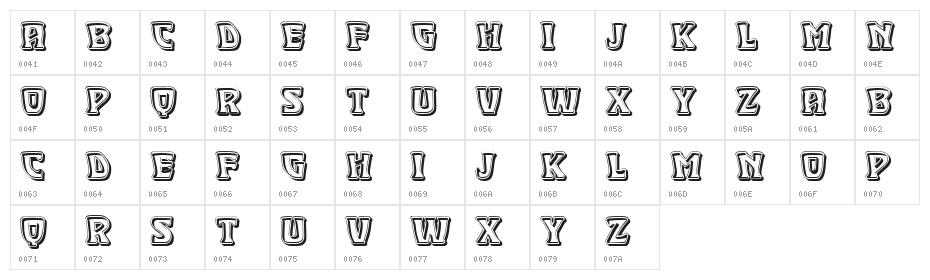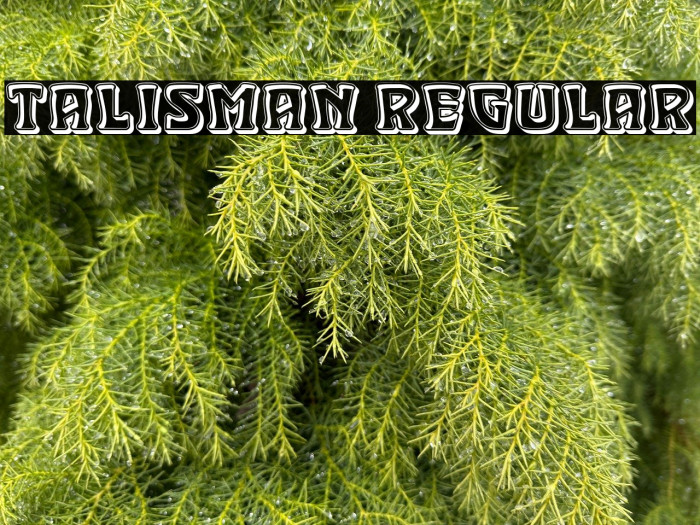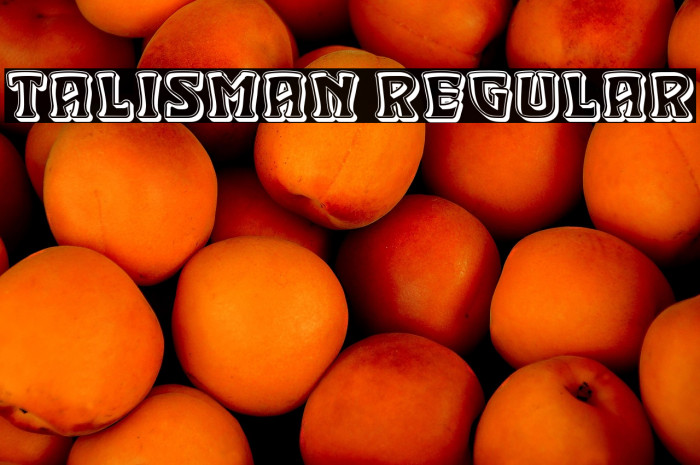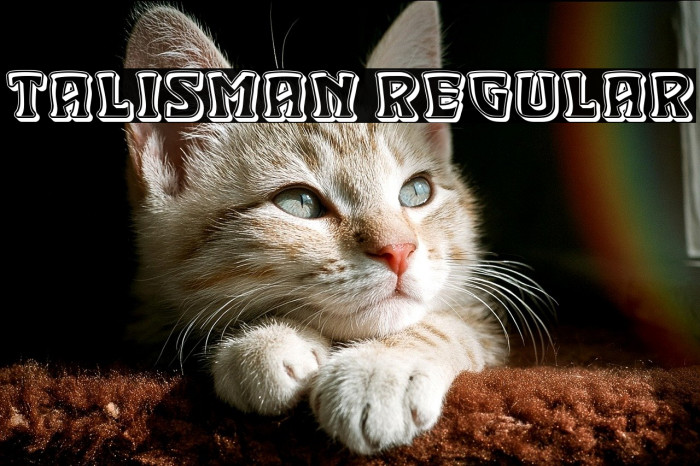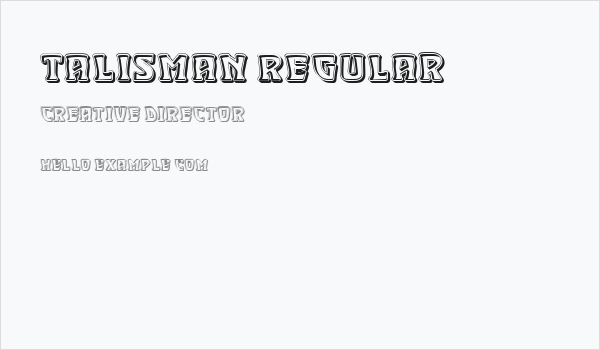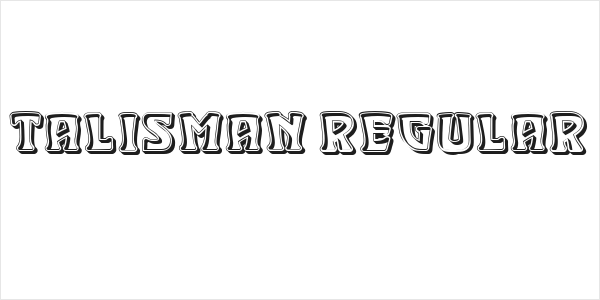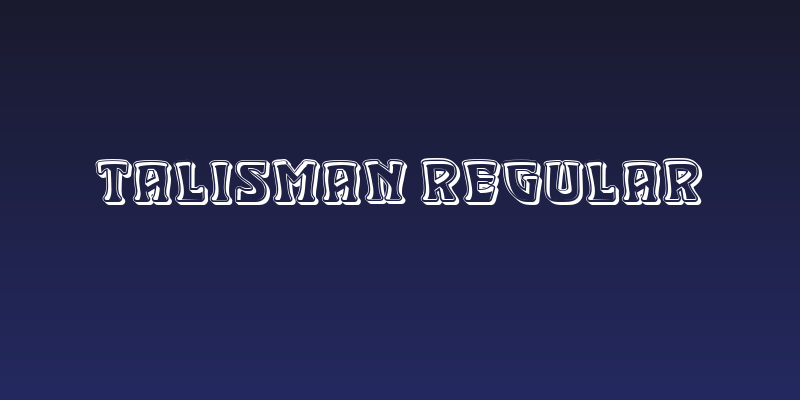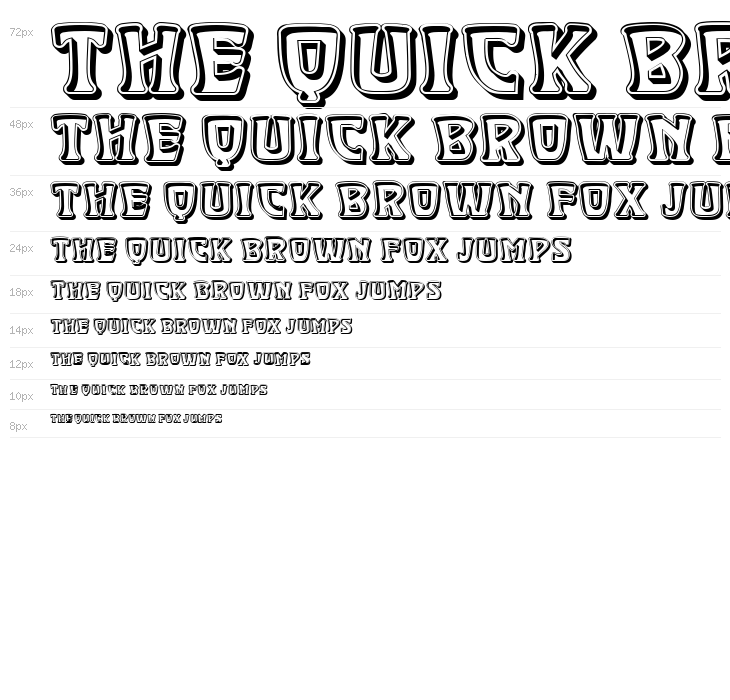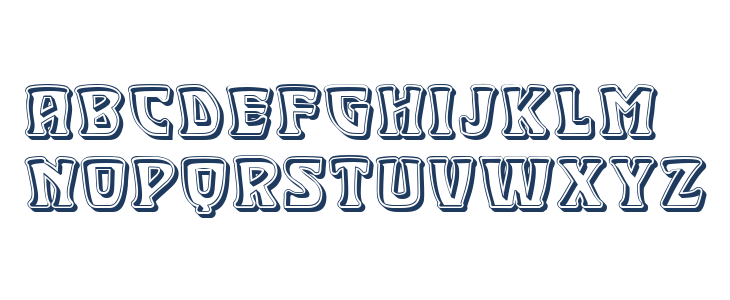
Talisman Regular Font
Talisman Regular Description
This font features a bold, decorative style with a three-dimensional effect, giving each character a shadowed appearance. The letters are uppercase and have a playful, cartoonish quality, making them stand out with their thick outlines and inner detailing. The design is reminiscent of retro or vintage signage, with a touch of whimsy and boldness. The characters are evenly spaced, ensuring readability while maintaining their unique style. This font is ideal for projects that require a fun and eye-catching display, such as posters, headlines, or branding materials that aim to convey a sense of excitement and creativity.
| Overall Style | Vintage, Decorative |
| Proposed Projects | Ideal for posters, headlines, branding, and any project needing a fun, eye-catching display. |